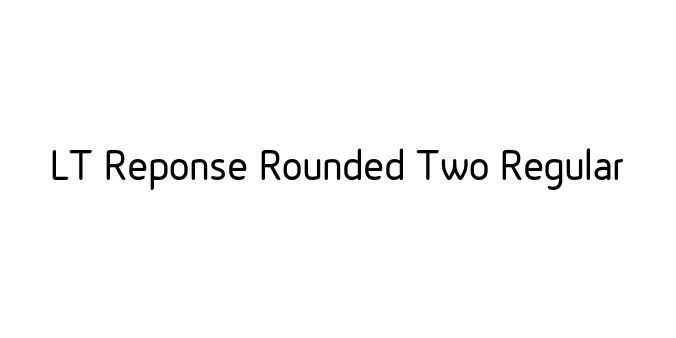
LT Reponse Rounded Two Regular
Designed by LyonsType
| Category | Rounded Sans Serif |
| Designer | LyonsType |
LT Reponse Rounded Two Regular is a sophisticated and approachable sans-serif typeface created by the digital foundry LyonsType. It serves as a gentle evolution of the standard Reponse family, incorporating softened terminals and smooth curves that reduce the harshness often found in geometric designs. This specific weight offers a harmonious balance between technical structural integrity and a friendly, human-centric aesthetic, making it a staple for contemporary designers.
The font is characterized by its high x-height and open counters, which contribute to exceptional legibility across various screen resolutions and print qualities. LT Reponse Rounded Two Regular is particularly effective in environments where clarity and warmth are equally prioritized. Whether used in a minimalist web layout or a playful branding campaign, its refined rounded edges provide a modern look that feels both professional and accessible.
LT Reponse Rounded Two Regular Best Uses
Highly effective for buttons, navigation bars, and mobile app interfaces due to its soft yet clear letterforms.
Excellent for tech startups, educational platforms, and lifestyle brands seeking a modern and welcoming identity.
Works well for body text and pull-quotes in magazines that favor a clean, contemporary layout.
Perfect for social media graphics and digital ads where a friendly, non-aggressive tone is required.
Ideal for eco-friendly or health-conscious product packaging that requires an organic yet structured feel.